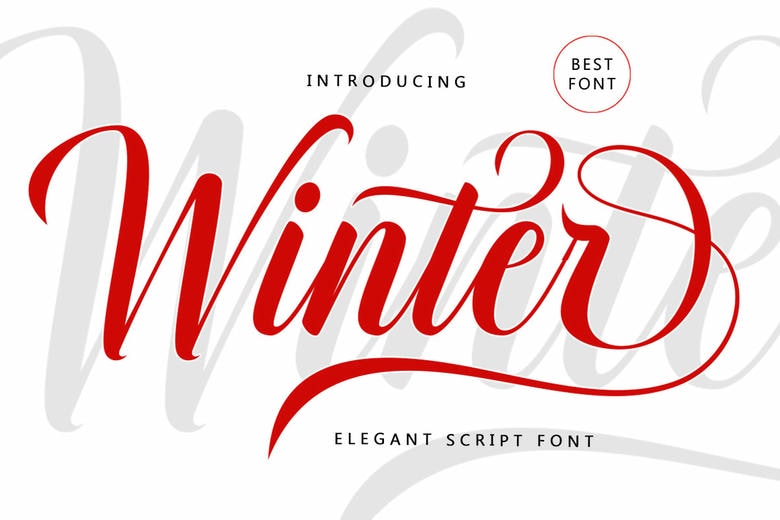
Winter Font
Winter Font is an elegant script font with beautiful character variations. It blends classic style with a modern touch, carefully designed for a refined look. The font is visually appealing, clean.
Winter Calligraphy Script Font